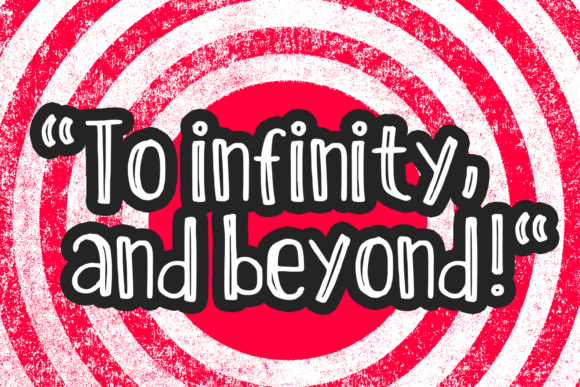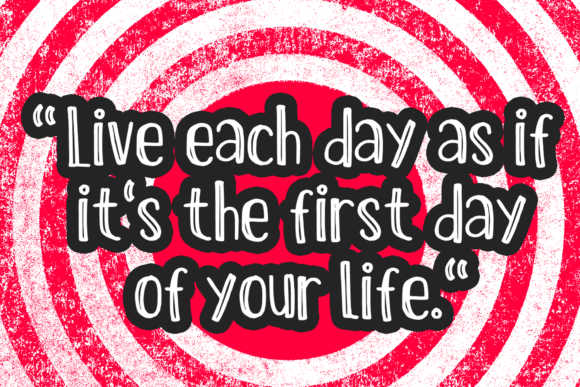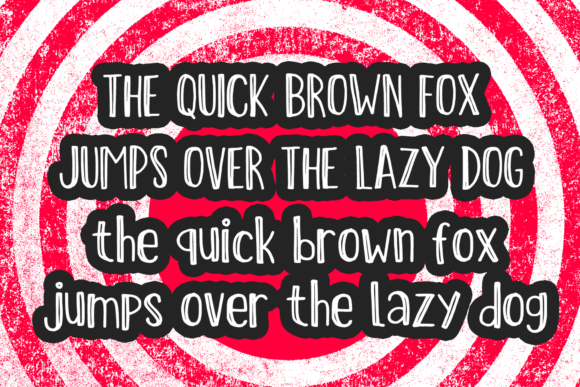
Introduction to Retro Records Font
Do you remember that moment when you were brainstorming ideas for your next design project, and suddenly, a wave of nostalgia washed over you? You wanted to create something that would transport people back to a bygone era, something that would make them smile and feel carefree. For many designers, that moment sparks a desire to incorporate a classic, retro touch into their work.
Enter the Retro Records Font, a charming, minimalist font that’s perfect for adding a casual, vintage vibe to any design project. With its incredibly versatile style, you can use it to create a wide range of designs, from t-shirts and kids’ book covers to greeting cards and stickers. Whether you’re looking for a high-quality font for a free download or a design resource with a transparent background, the Retro Records Font has got you covered.
As a designer, you know how valuable it is to have a reliable font that can elevate your creative project and make it truly stand out. The Retro Records Font is a valuable addition to any design arsenal, offering a unique and timeless look that’s sure to delight your audience.
Retro Records Font
- Features a unique, distressed aesthetic with a transparent background, perfect for adding a vintage touch to designs
- Includes a range of characters, including uppercase and lowercase letters, numbers, and punctuation
- Perfect for music-related projects, such as album artwork, posters, and merchandise, as well as other creative projects that require a retro vibe
Honest Review: Retro Records Font
I recently had the chance to dive into the Retro Records Font, a free download that’s been making waves in the design community. At first glance, I was struck by its high quality and attention to detail. The font’s unique aesthetic is perfect for creative projects that need a touch of nostalgia.
Here are some things that work well: ✨ The font’s transparent background makes it easy to layer and composite with other design elements. ✨ The included character set is comprehensive, covering a wide range of languages. ✨ The font’s bold, chunky feel is ideal for headlines and titles.
However, there are a few limitations: ⚠️ The font’s design may not be suitable for all projects, particularly those that require a more modern or minimalist look. ⚠️ The font’s bold weight can be overwhelming in some contexts.
Overall, I was impressed by the Retro Records Font’s unique character and high quality. While it may not be the perfect fit for every project, it’s definitely a valuable addition to any design resource library.
Retro Records Font
Using in Creative Projects
Retro Records Font is a versatile design resource ideal for various creative projects, including music-inspired artwork, vintage-style posters, and more. To use it in your project, follow these steps:
Tips for Getting the Most Out of Retro Records Font
To maximize the impact of Retro Records Font, experiment with different font sizes, colors, and arrangements. You can also combine it with other design elements to create a unique look.
Retro Records Font is commonly used in music-themed designs, such as:
- Music festival posters
- Vintage-style album covers
- Music-inspired social media graphics